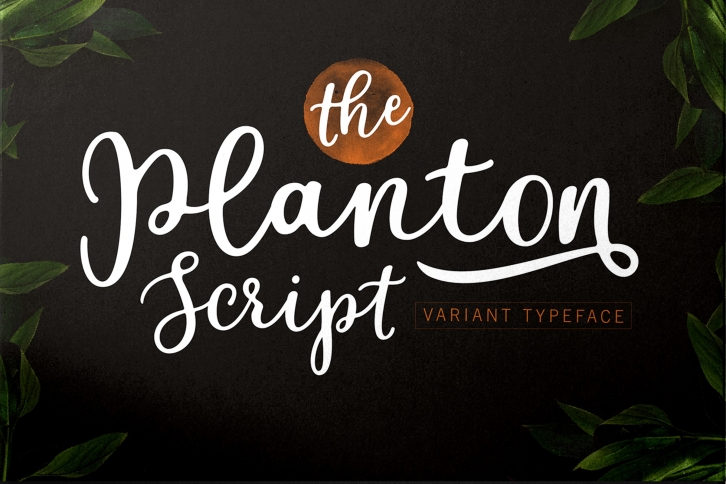
Planton Script is a great font that was designed by GenesisLab. Imagine the amount of combinations you can create using this font! The archive is 13.31 MB and it was released on July 13, 2017. Planton Script looks beautiful on wedding invitations, greeting cards, logos, posters, labels, t-shirt designs, logos, business cards and is perfect for use in ink or watercolor works, fashion, magazines, packaging and food menus, children's books and more!